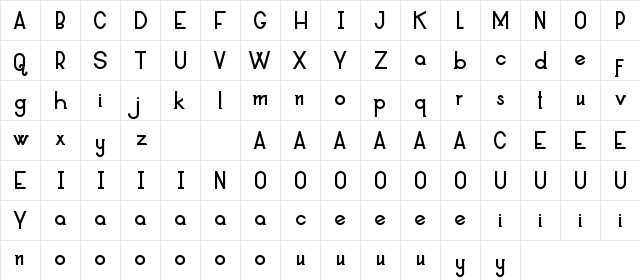
Allorta Demo Bold
| Foundry | Edric Studio |
| Designer | Lisna |
Design Context for Allorta Demo Typeface
Allorta Demo is a composed and adaptable typeface that performs quietly and consistently across a wide range of design contexts. Its bold stroke weight gives it real presence on the page.